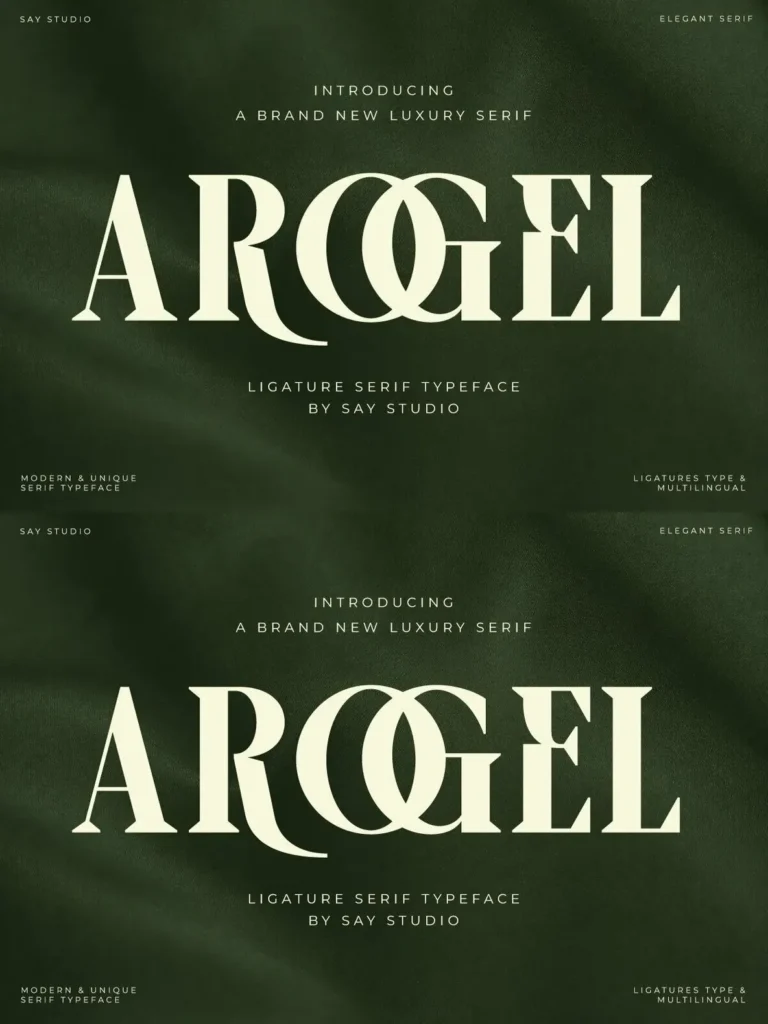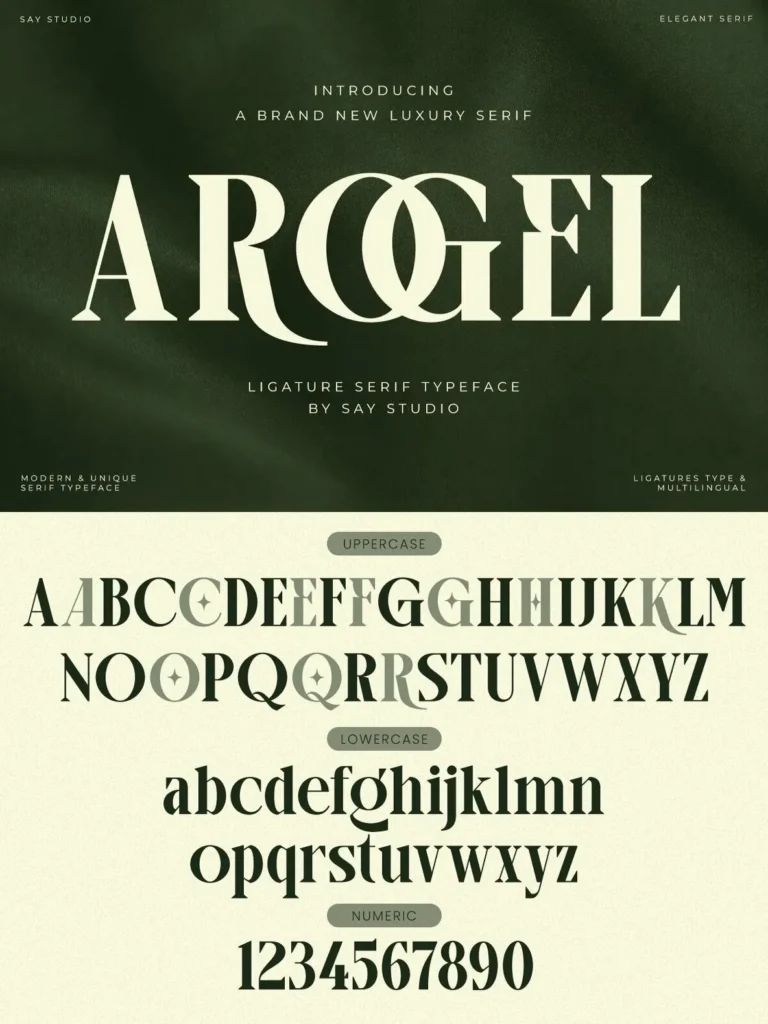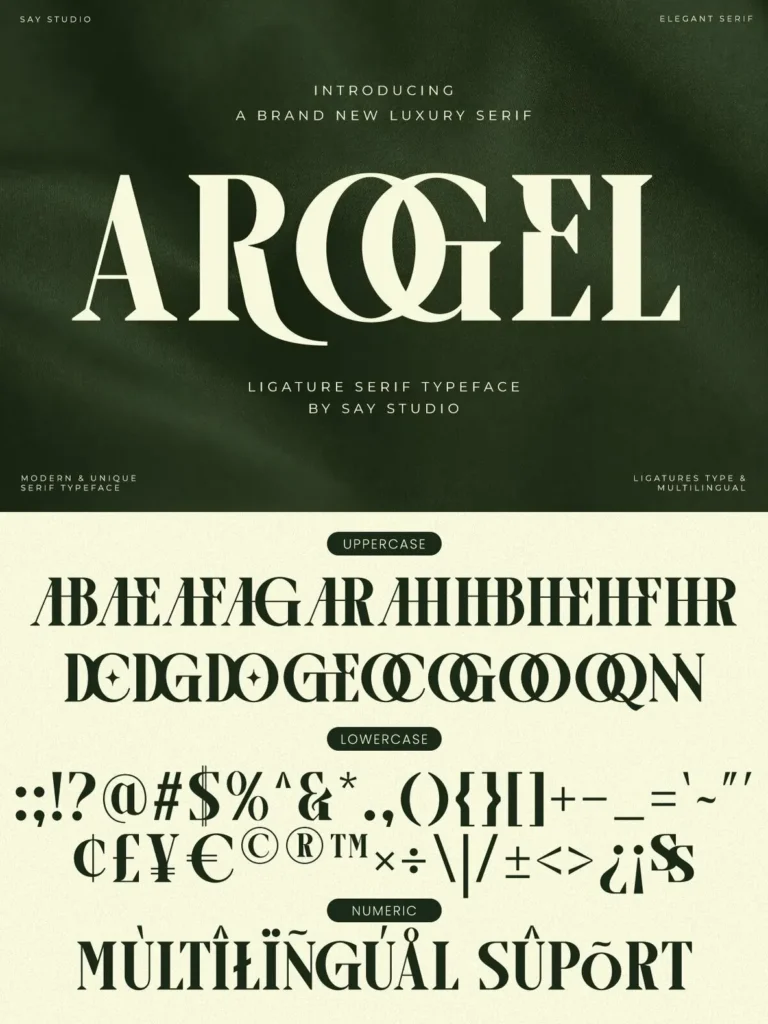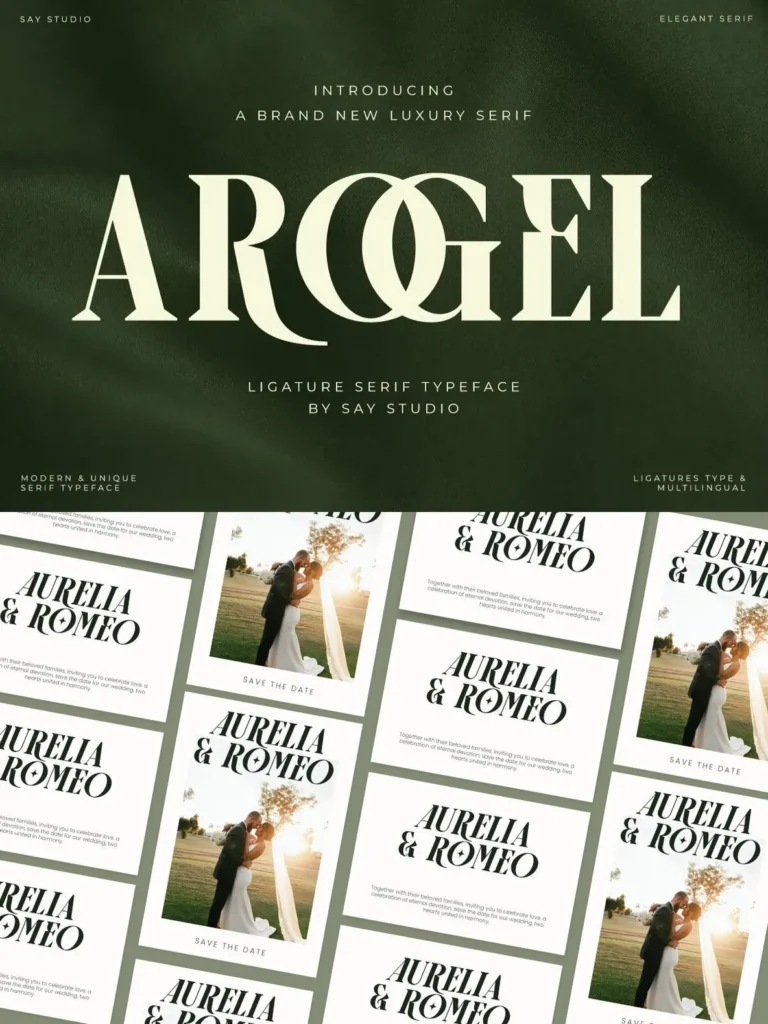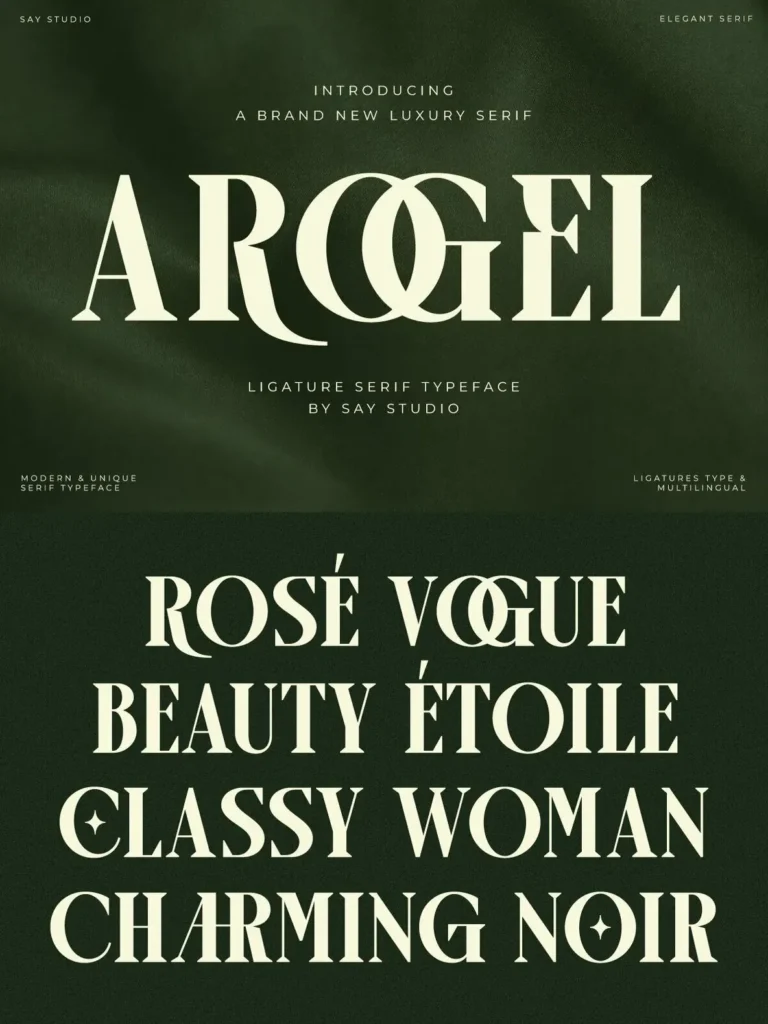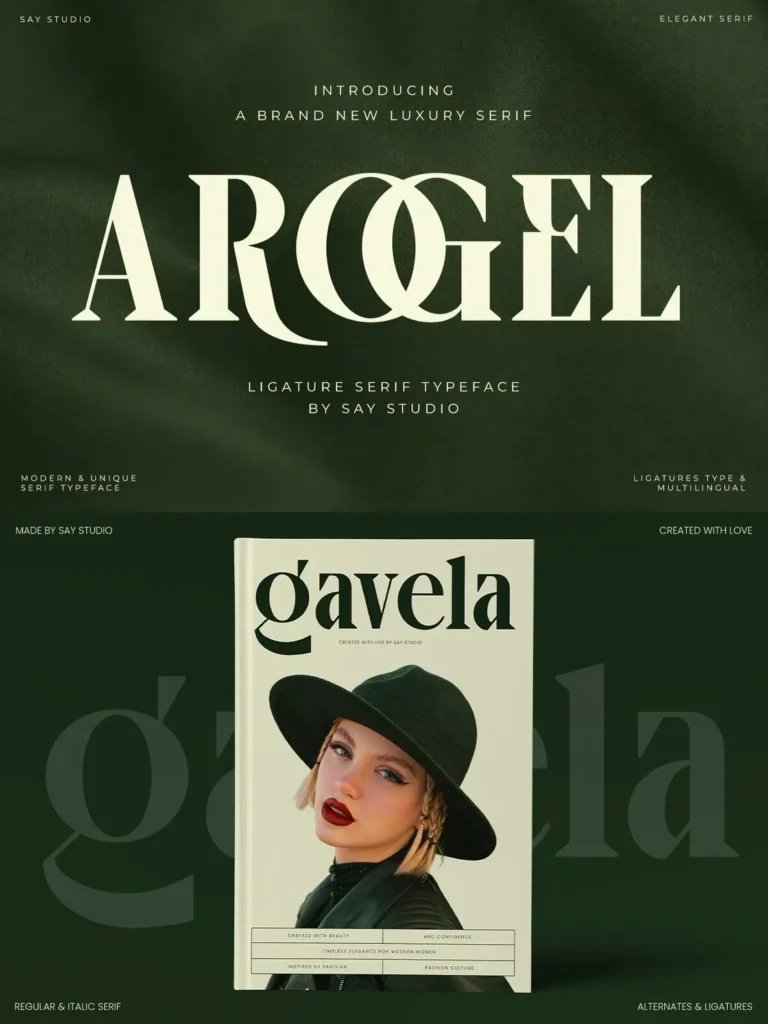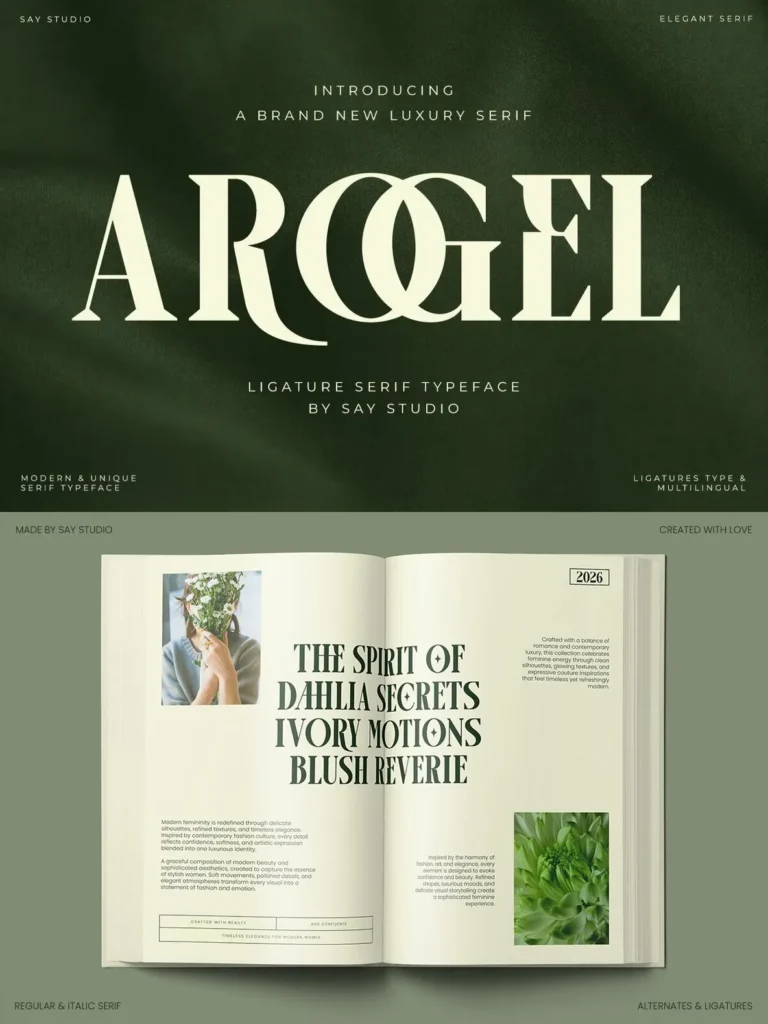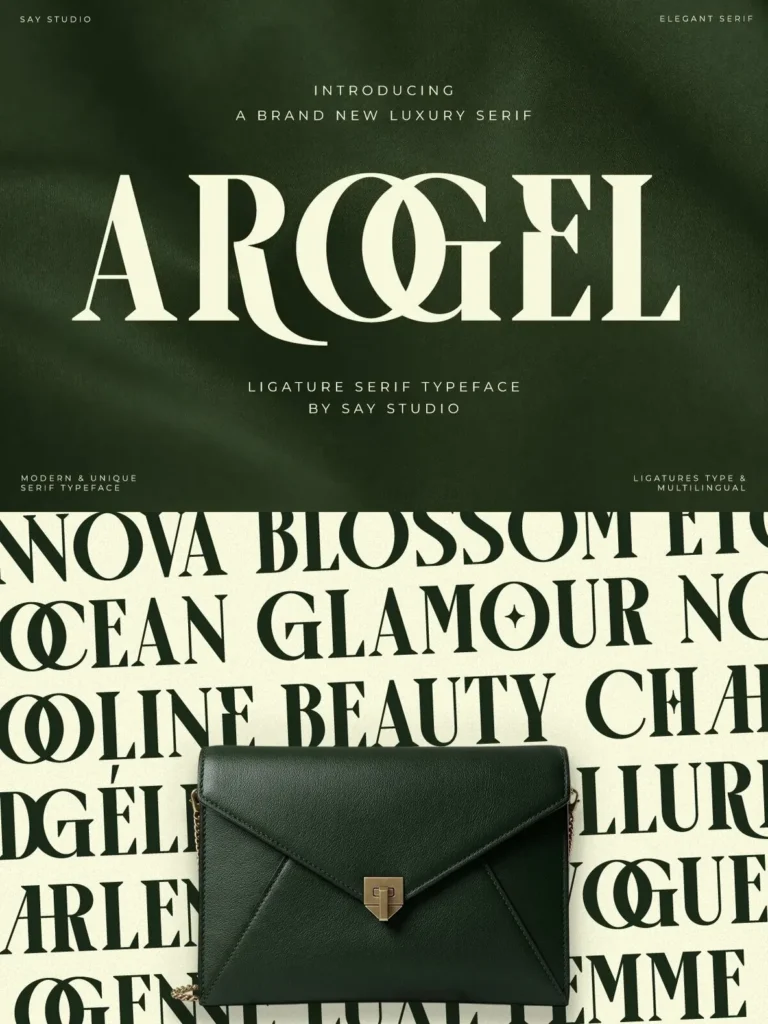
Arogel — Luxury with Poise
Arogel is a luxurious serif typeface designed to embody elegance, sophistication, and modern refinement. Its beautifully sculpted letterforms, dramatic contrast, and graceful curves create a striking visual presence for branding, editorial work, and high-end design projects. Distinctive ligatures give the font a memorable voice, bringing individuality to words without losing its polished, timeless character.
Inspired by luxury fashion houses, premium beauty brands, and contemporary editorial design, Arogel blends classic serif traditions with modern artistic details. It is ideal for logos, headlines, packaging, sophisticated visual identities, fashion campaigns, cosmetic products, wedding stationery, and magazine covers. Arogel also suits luxury branding, fashion labels, jewelry packaging, beauty products, boutique businesses, editorial layouts, invitations, social media content, and upscale marketing materials. With multilingual support and elegant styling, this typeface helps designers create prestigious visual work with lasting appeal.
Regular and Italic Style
Stylistic Ligatures
Uppercase and Lowercase
Number, Symbol, and Punctuation
Multi Language Support